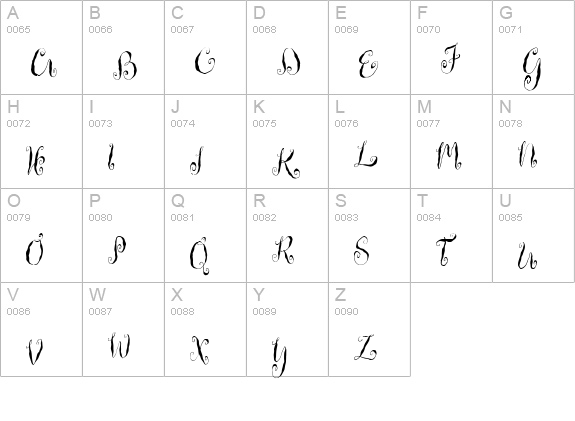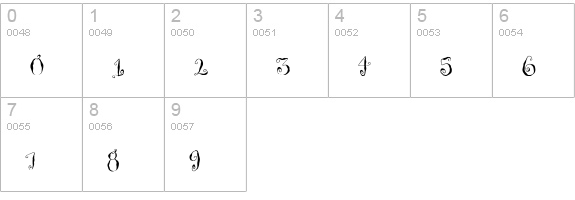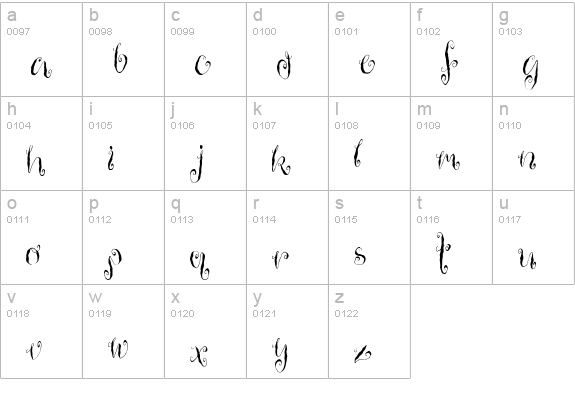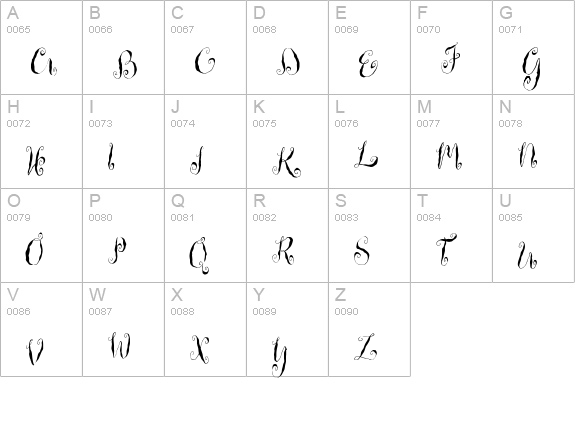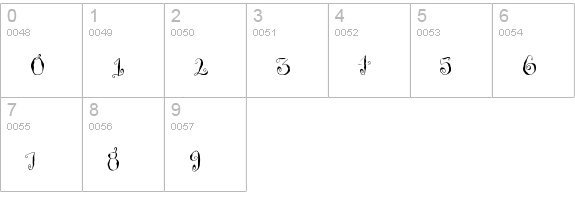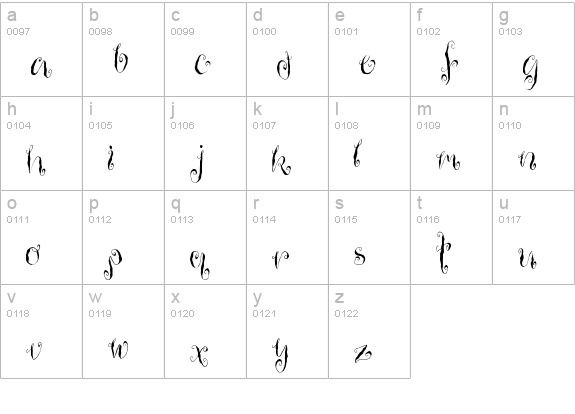
HousemaidRegular Font Details
HousemaidRegular font is a versatile and stylish typeface that is perfect for a wide range of design projects. With its clean lines and modern aesthetic, this font is sure to make your text stand out. Whether you're working on a website, logo, poster, or any other design project, HousemaidRegular font will add a touch of sophistication and elegance. The best part? HousemaidRegular font is available for free download at FontsMarket.com, so you can start using it in your projects right away. Don't miss out on this amazing opportunity to enhance your designs with this beautiful and unique font. Download HousemaidRegular font today and take your designs to the next level!